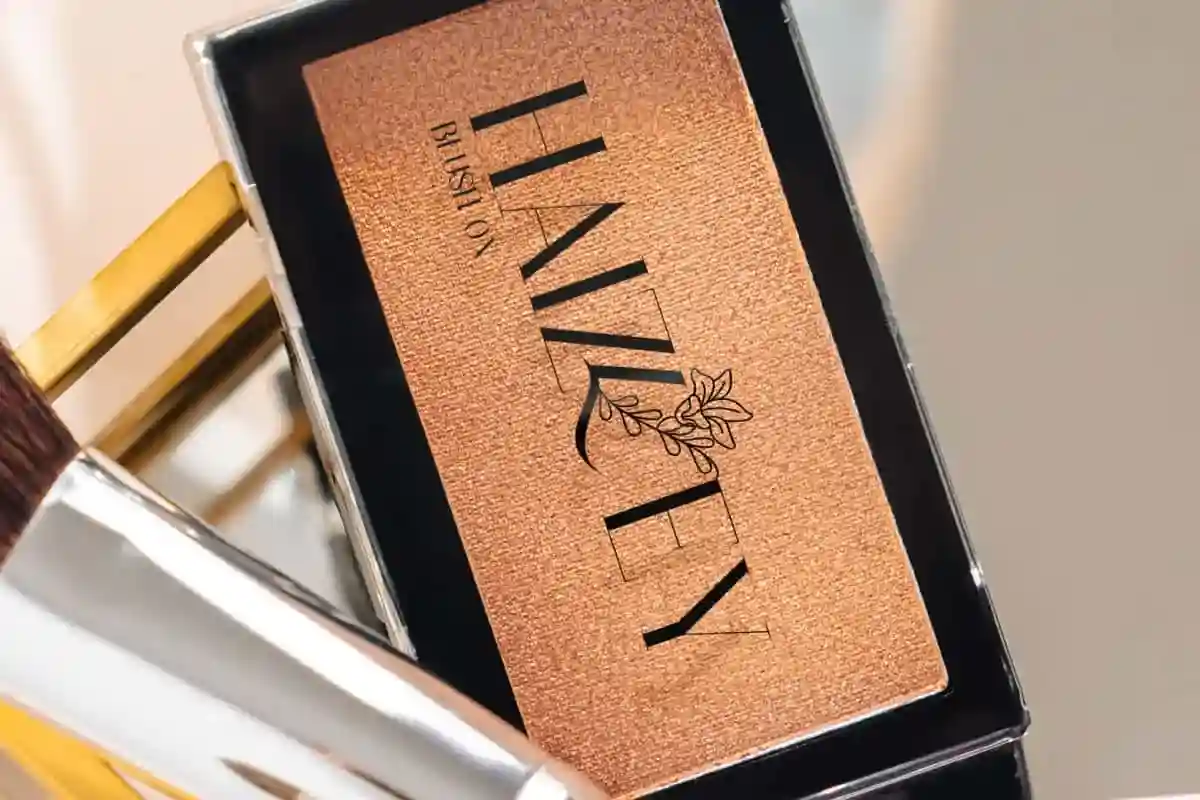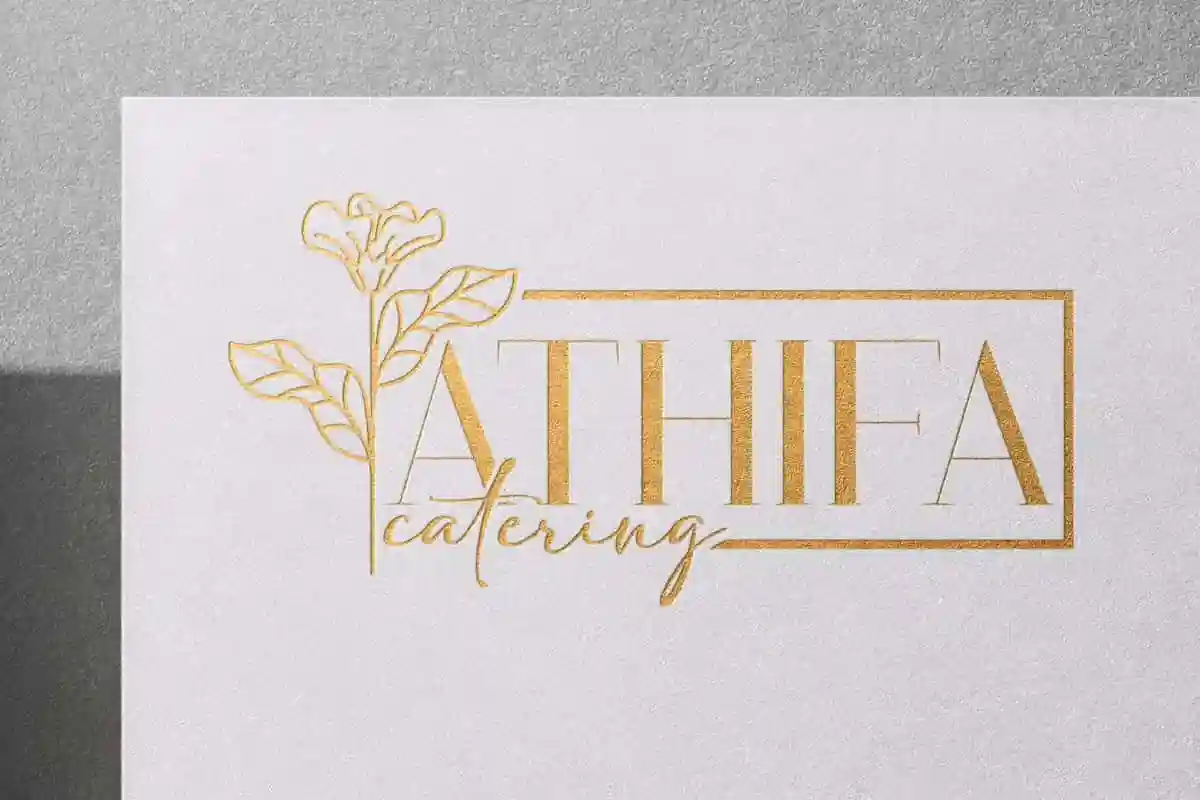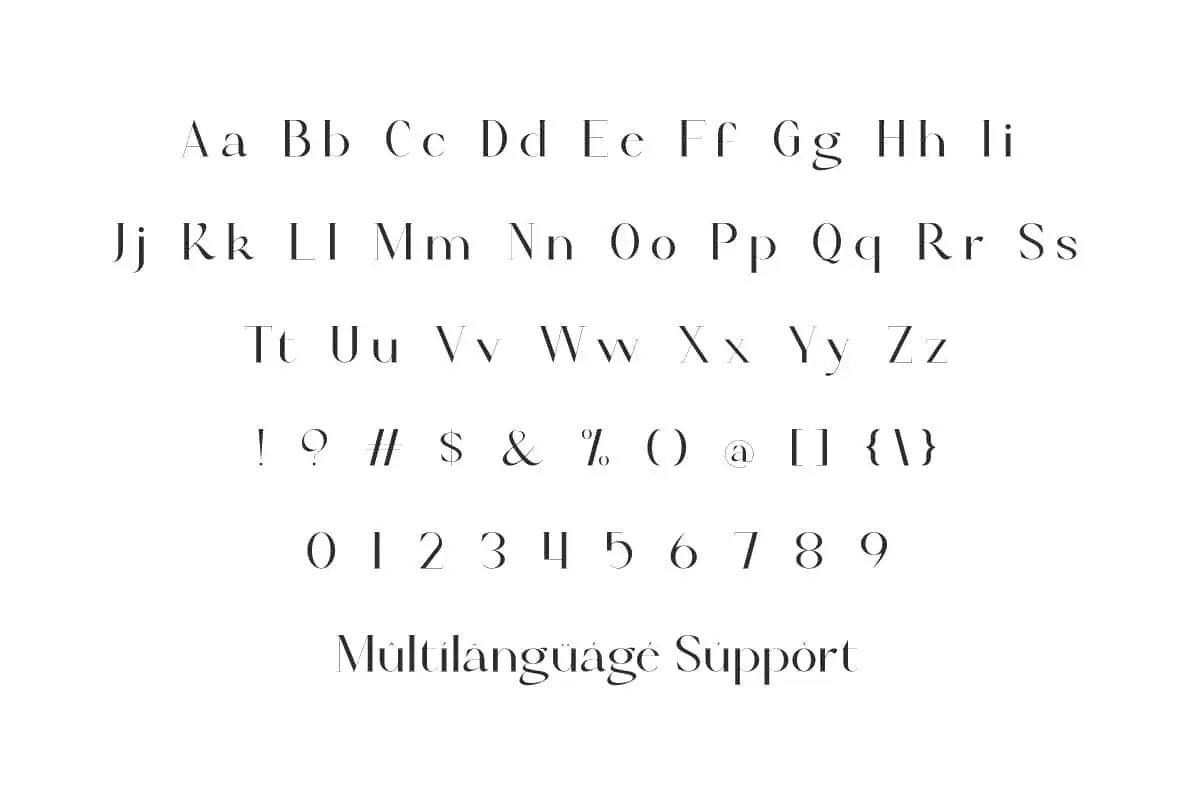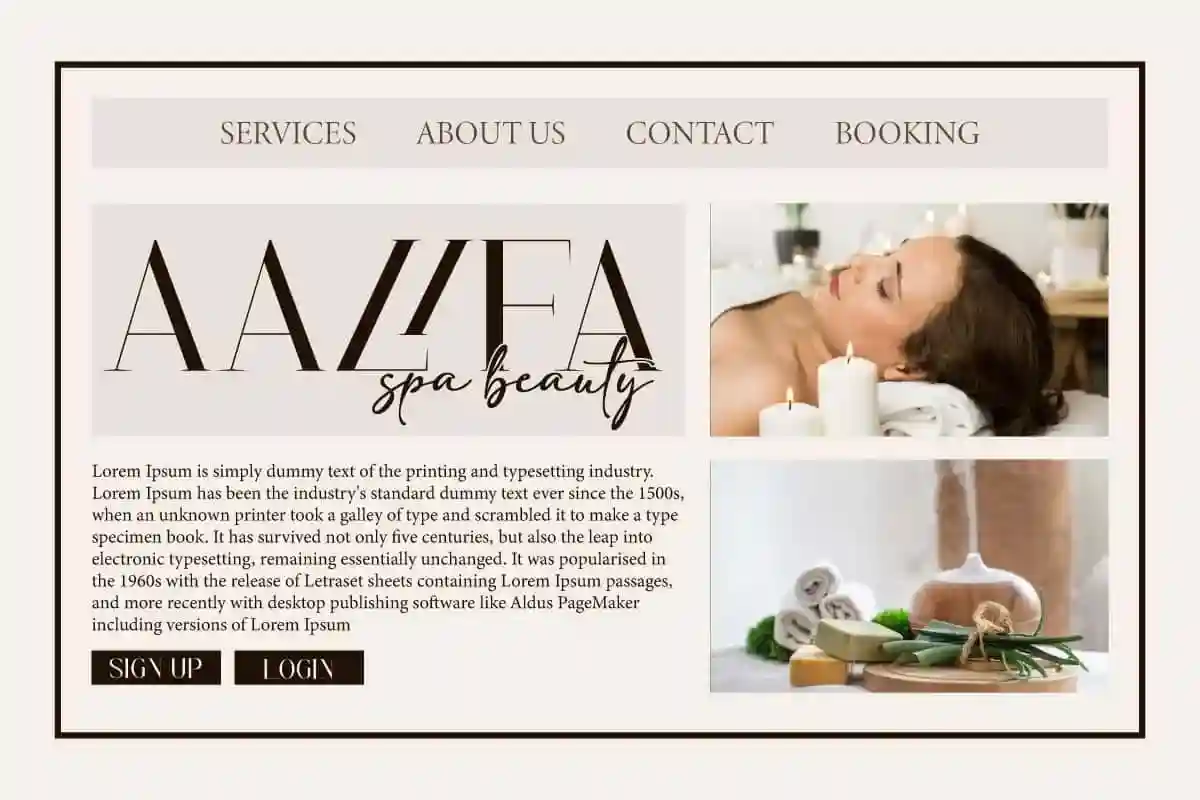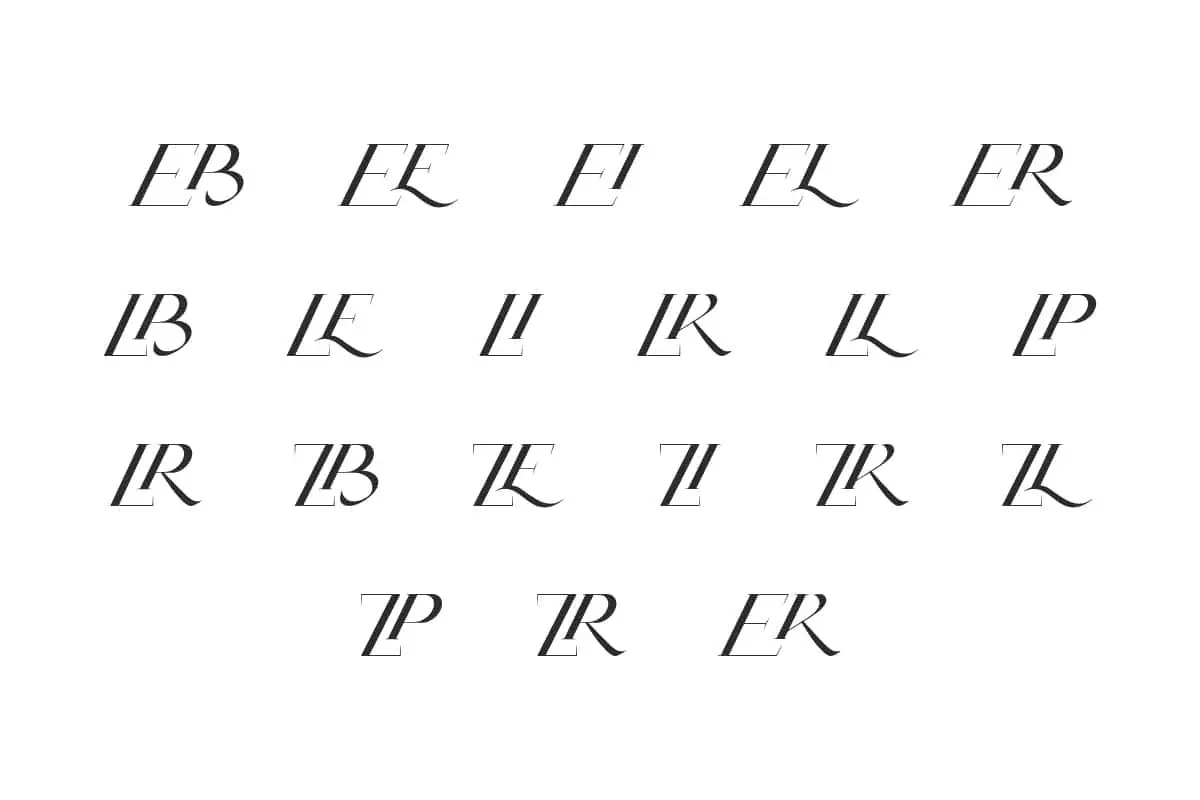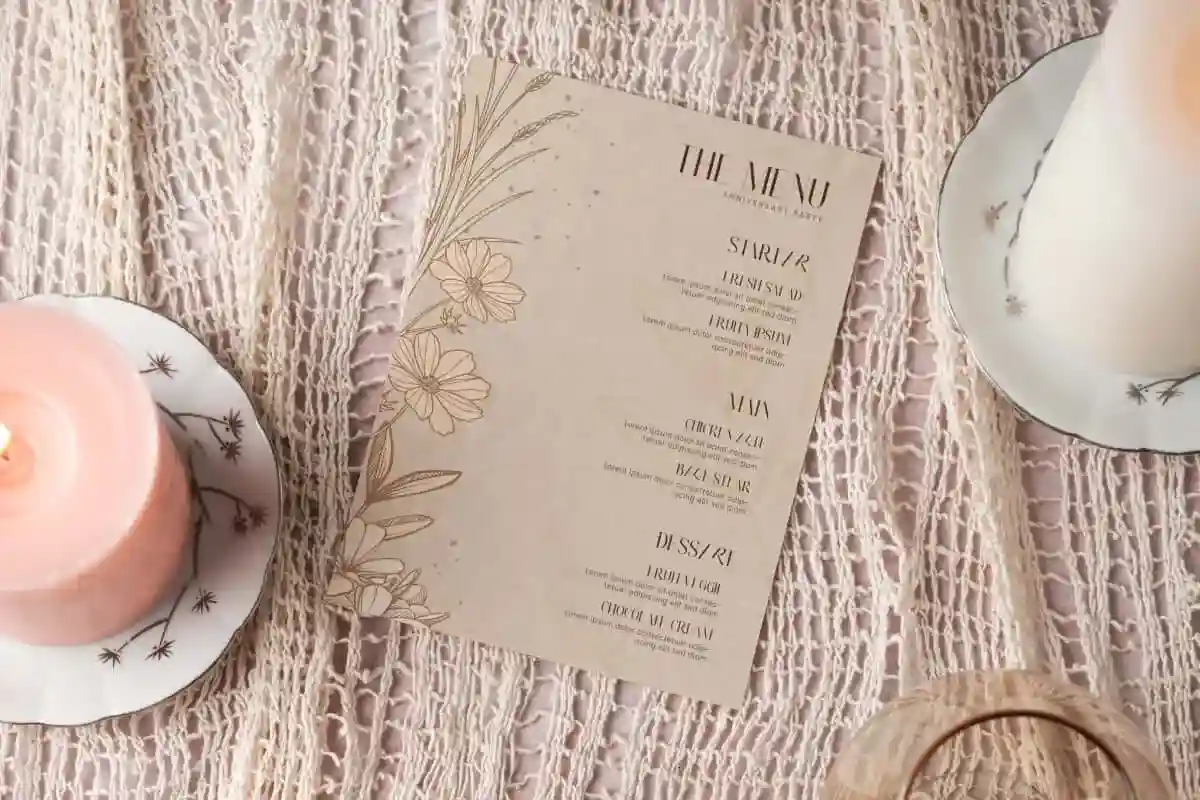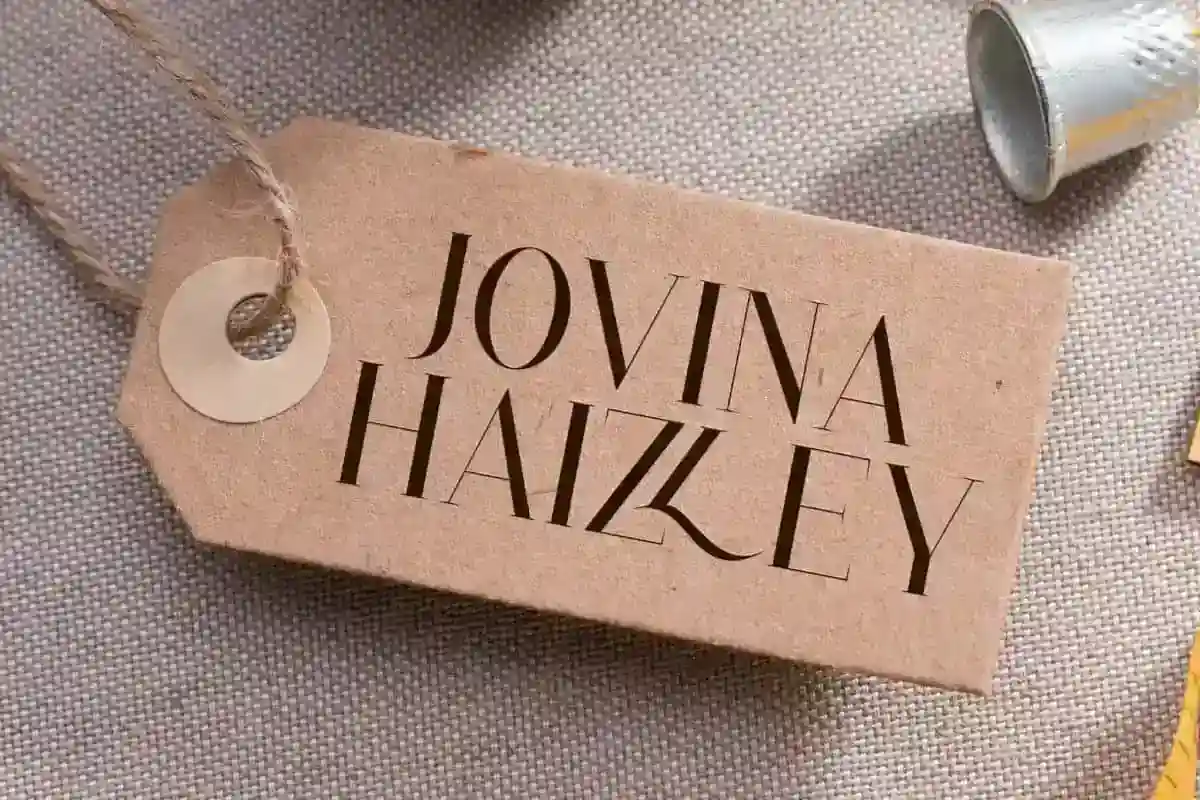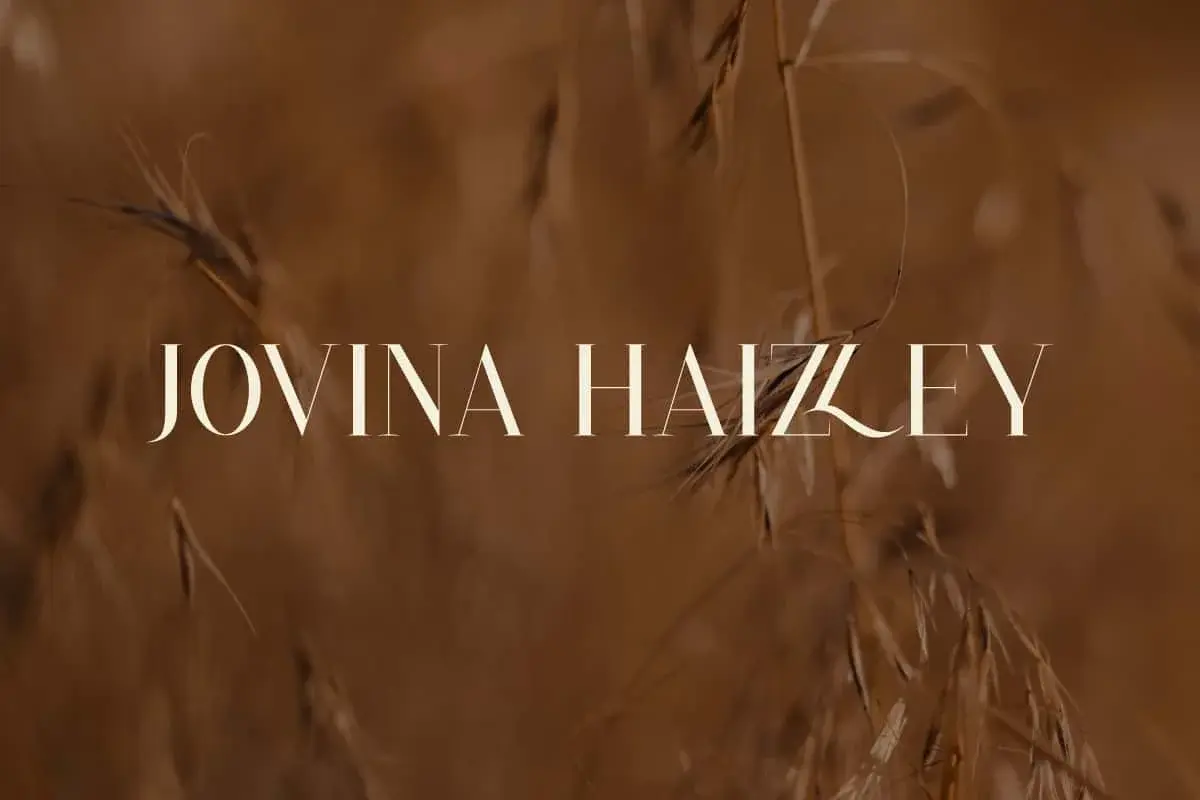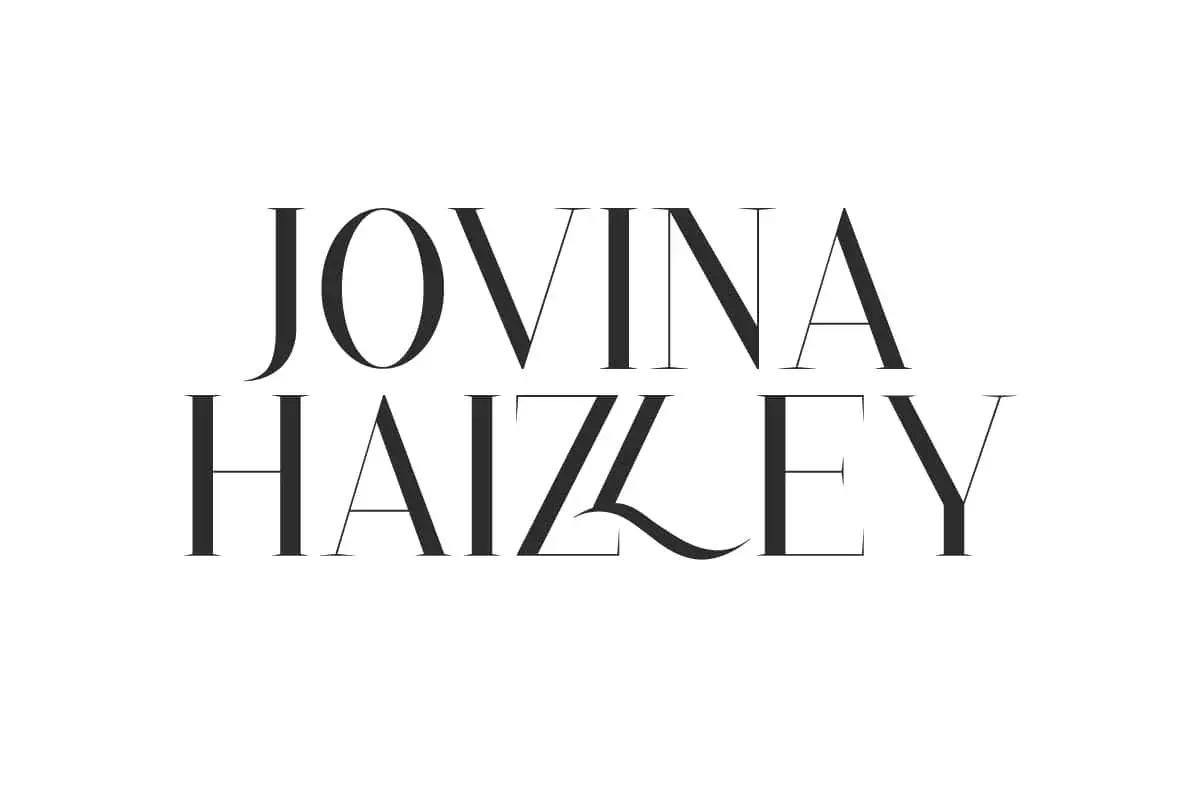
Jovina Haizley Font is an elegant luxurious serif display font that brings an immediate elevation to any design, making it perfect for you!
Jovina Haizley Font is an elegant luxurious and rich serif display font, ideal for lending a modern and classical edge! It would be very suitable to be used in artwork, branding, campaigns, digital blog, display, imagery, layouts, mockup, print, signage, social media, visuals, website and more.
Jovina Haizley Font includes full set of Uppercase and Lowercase Basic Characters, Numbers, Punctuation, Symbols and Ligature. This font has classy characteristics so that any design looks magnificent. It is a great choice for accessories, advertising, art galleries, authors, bakeries, beauty brands, beauty clinic, boutique, cafés, clothing, cosmetics, craft, quotes, real estate, restaurants, salons, skincare, travel, website, etc.